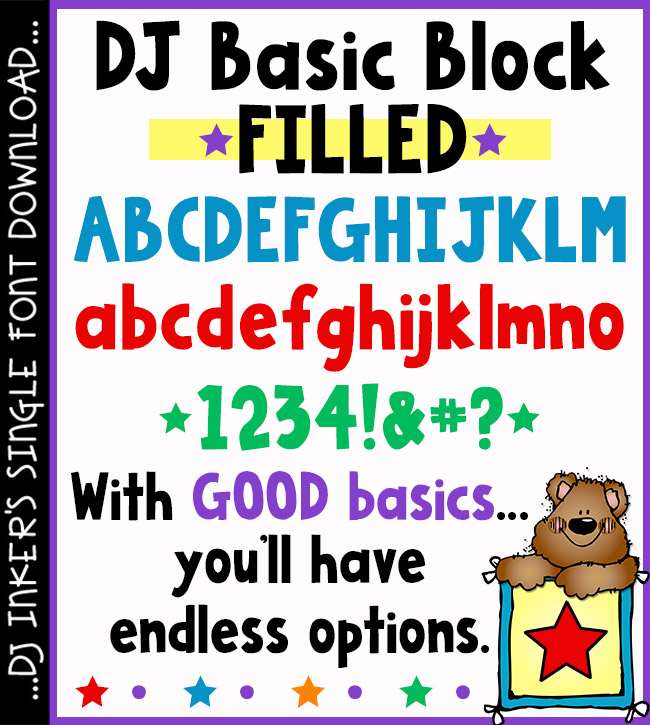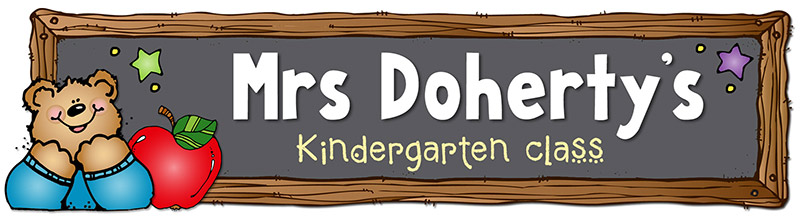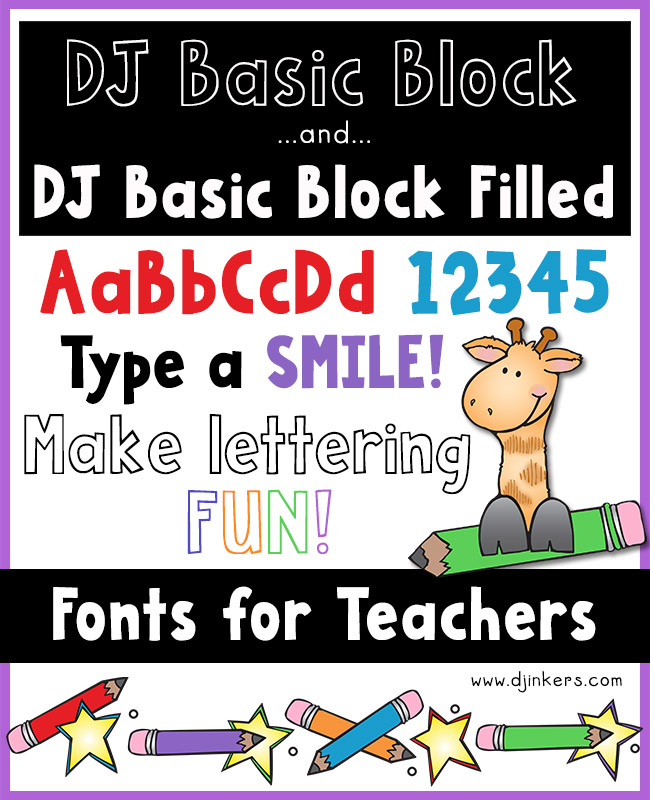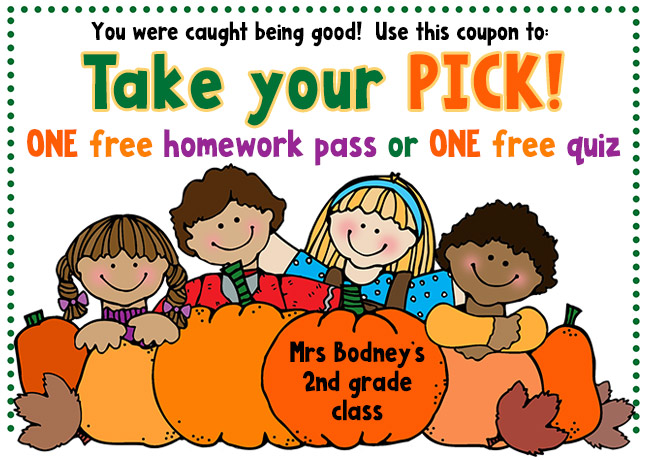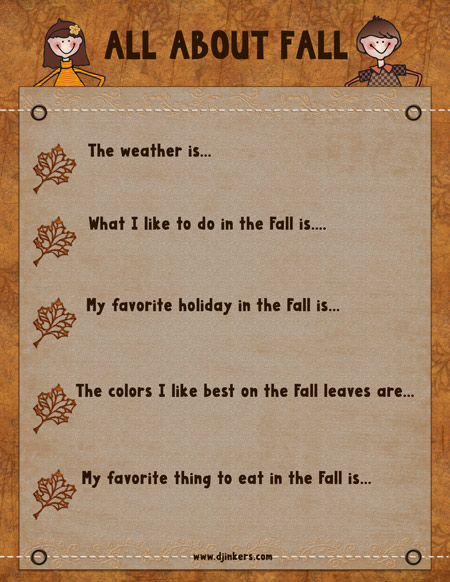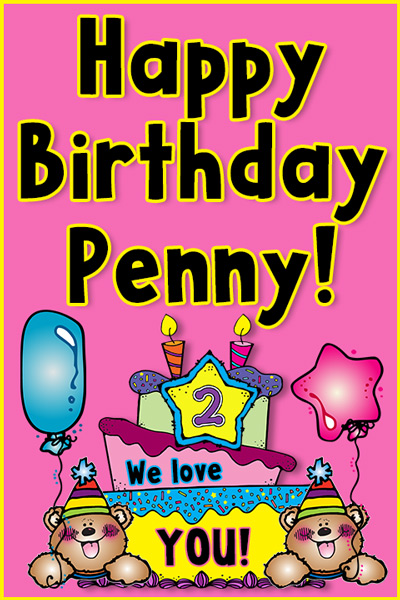
Type in big bold letters with a smile using DJ Basic Block Filled font byDJ Inkers
DJ Basic Block Filled Font Download
Type in big bold letters with a smile using DJ Basic Block Filled font byDJ Inkers
DJ Basic Block Filled Font Download
With good basics you'll have endless options! This bold block letter font is cute, strong and readable... so it's great for customizing headlines, posters, bulletin boards, labels and more. Perfect for teachers, administrators, special events, crafting and filling your projects with fun.
Try our DJ Basic Block font for the open/outline version of these letters... great for coloring!